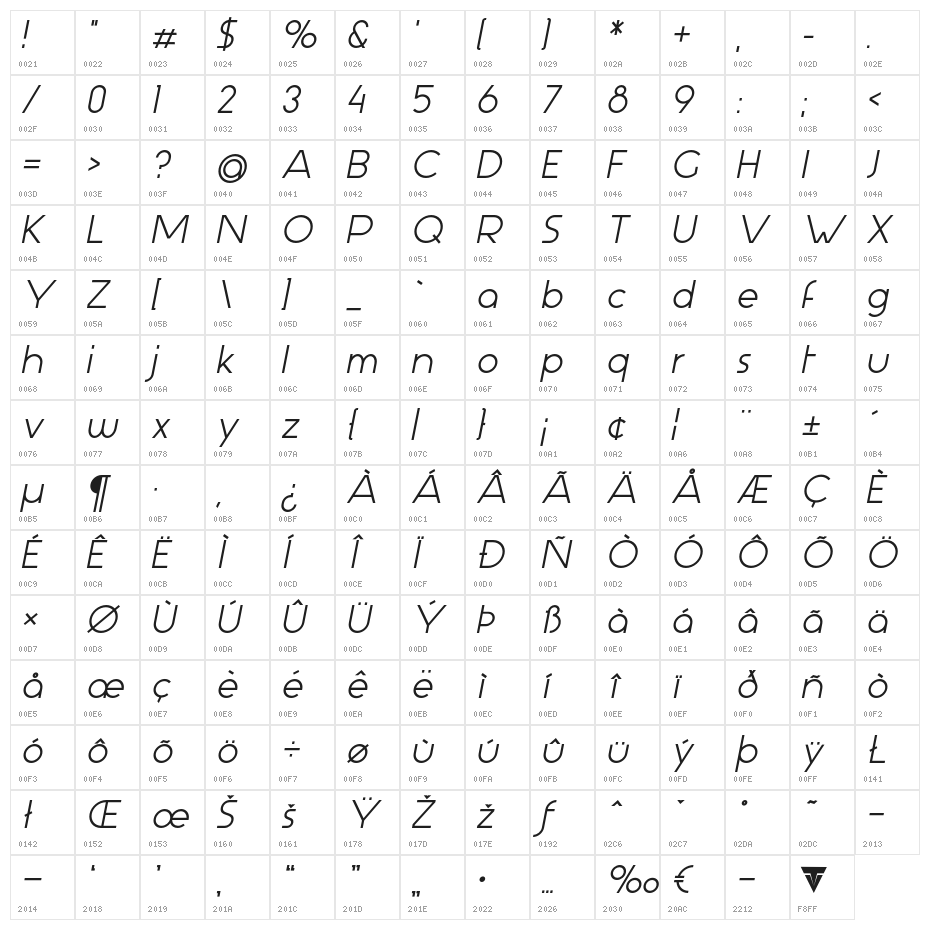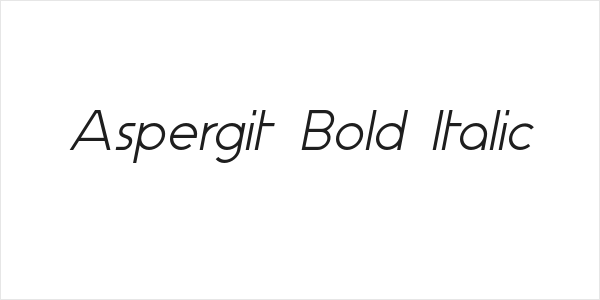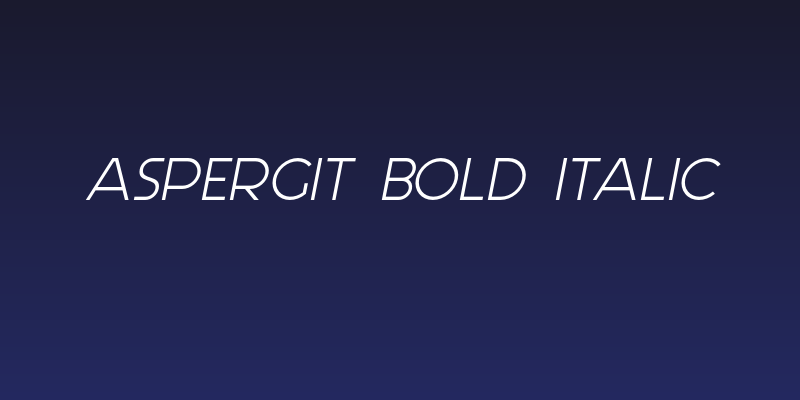
Aspergit Bold Italic Font
Aspergit Bold Italic Description
This font features a sleek and modern design with a distinct italic slant, giving it a dynamic and forward-moving appearance. The characters are crafted with clean lines and a consistent stroke width, contributing to a harmonious and balanced look. The uppercase and lowercase letters maintain a uniform style, while the numerals and special characters are designed to complement the overall aesthetic. The font's geometric structure and smooth curves make it versatile for various design applications, offering both readability and style.